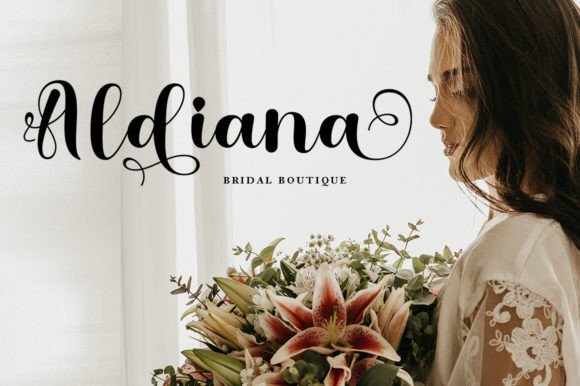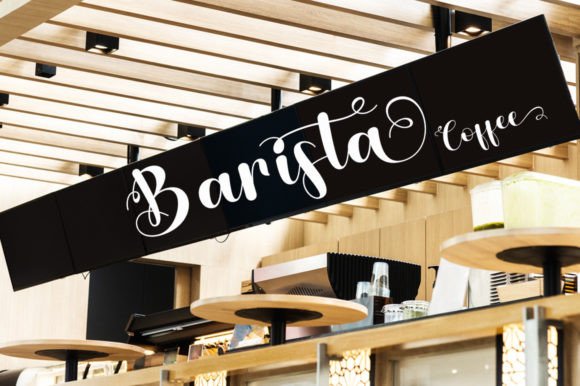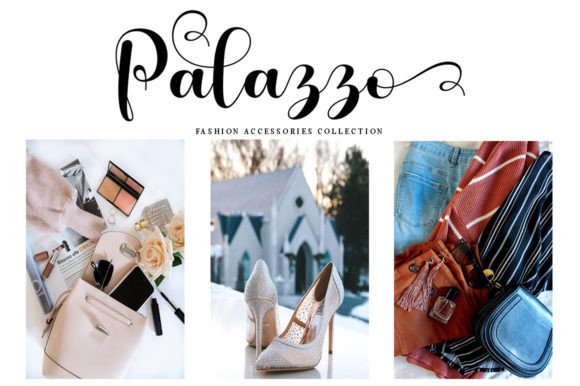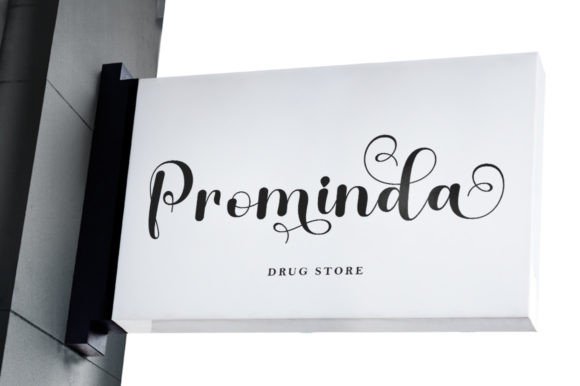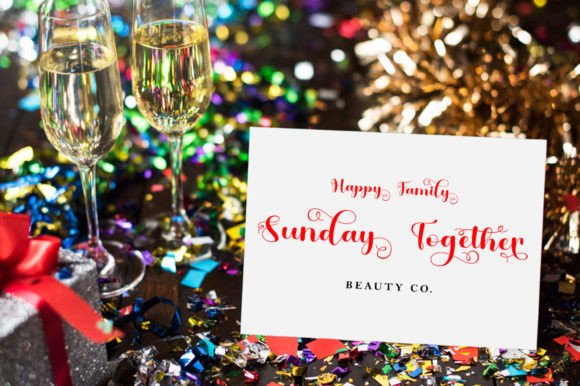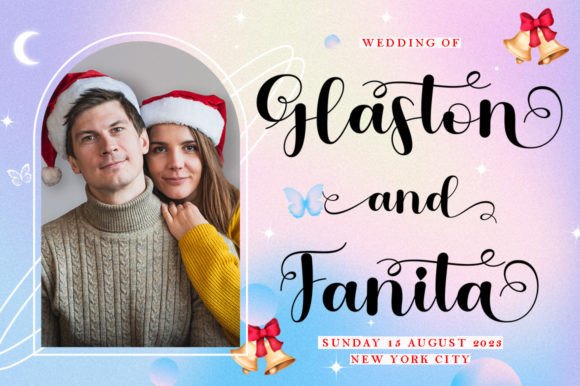
Happy New Year Font: Elevate Your Designs with Elegance and Sophistication
As the clock strikes midnight on New Year’s Eve, the world welcomes a fresh start, filled with hope and promise. What better way to usher in the new year than with a beautiful and delicate handwritten font? Introducing the Happy New Year Font, a stunning addition to any designer’s arsenal. This classy and modern font is perfect for creating stunning logos, branding materials, invitations, stationery, wedding designs, social media posts, and more!
What Makes Happy New Year Font So Special?
The Happy New Year Font is a true gem, boasting a range of features that set it apart from other fonts. Here are just a few reasons why designers and crafters will love this font:
• Beautiful Handwritten Script: The Happy New Year Font features a gorgeous handwritten script, perfect for adding a touch of elegance and sophistication to any design.
• Classy and Modern: This font seamlessly blends classic charm with modern flair, making it suitable for a wide range of design applications.
• PUA Encoded: The Happy New Year Font is PUA encoded, which means you can easily access all the amazing glyphs and ligatures, giving you endless creative possibilities.
• Versatile: From logos and branding materials to invitations, stationery, and social media posts, this font is perfect for any design project that requires a touch of class and sophistication.
Whether you’re a professional designer or a crafter looking to add a personal touch to your projects, the Happy New Year Font is an excellent choice. Here are just a few ways you can use this beautiful font:
• Logos and Branding: Create a lasting impression with a custom logo or branding materials that exude elegance and sophistication.
• Invitations and Stationery: Design beautiful invitations, greeting cards, and stationery that will make your friends and family feel special.
• Wedding Designs: Make your wedding designs truly unforgettable with the Happy New Year Font, perfect for wedding invitations, programs, and more.
• Social Media Posts: Elevate your social media presence with stunning graphics and posts that showcase your creativity and style.
Tips for Using Happy New Year Font
To get the most out of the Happy New Year Font, here are a few tips to keep in mind:
• Experiment with Glyphs and Ligatures: With PUA encoding, you can easily access a range of glyphs and ligatures to add visual interest to your designs.
• Play with Font Sizes and Colors: Don’t be afraid to experiment with different font sizes and colors to create a unique look that suits your design.
• Pair with Other Fonts: Combine the Happy New Year Font with other fonts to create a striking contrast and add depth to your design.
The Happy New Year Font is a beautiful and versatile addition to any designer’s toolkit. With its elegant handwritten script, PUA encoding, and endless creative possibilities, this font is perfect for a wide range of design applications. Whether you’re a professional designer or a crafter looking to add a personal touch to your projects, the Happy New Year Font is sure to impress. So why wait? Start creating stunning designs that usher in the new year with elegance and sophistication!